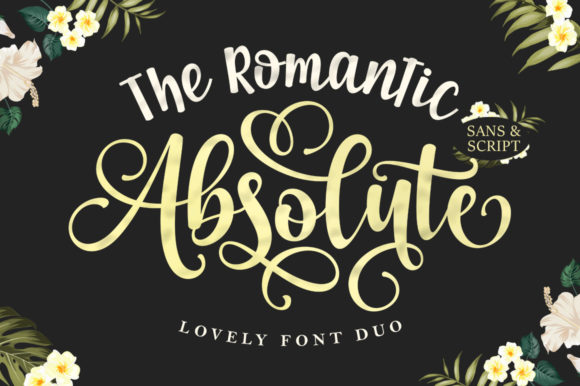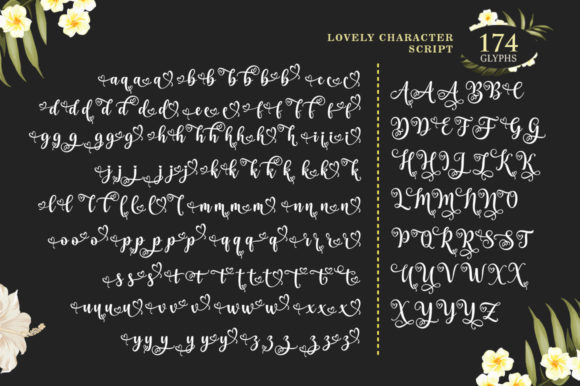
About The Romantic Absolute Font
The Romantic Absolute is a beautiful lettered and graceful duo font (sans serif and script). This font is PUA encoded which means you can access all of the glyphs and swashes with ease!
Fall for its ravishing style and use it to create gorgeous designs.